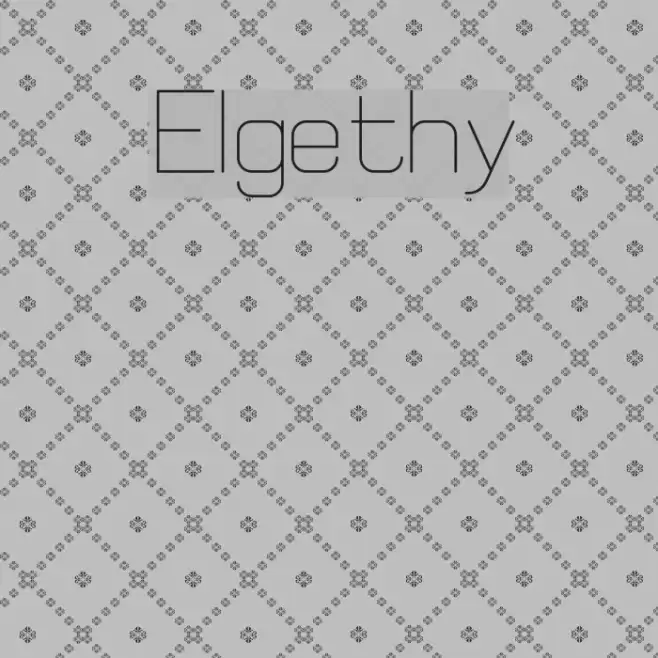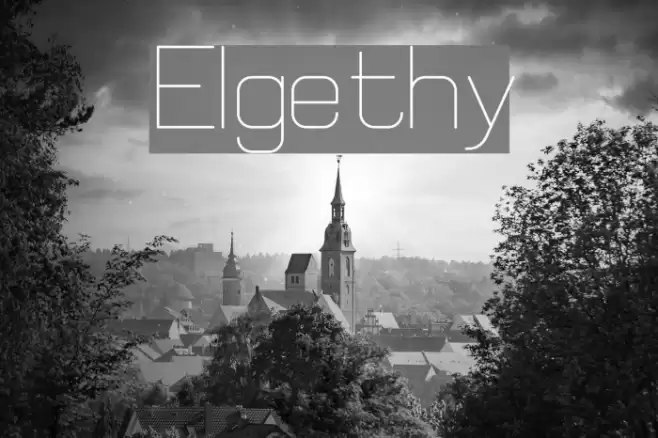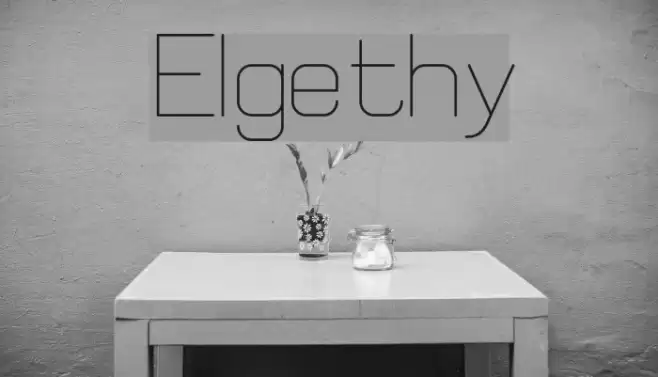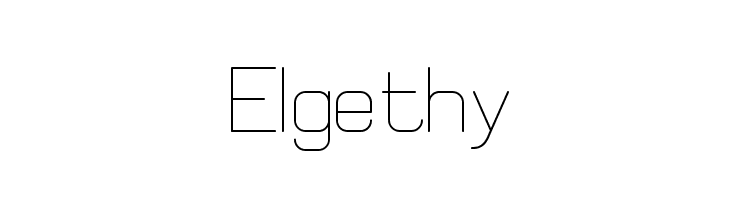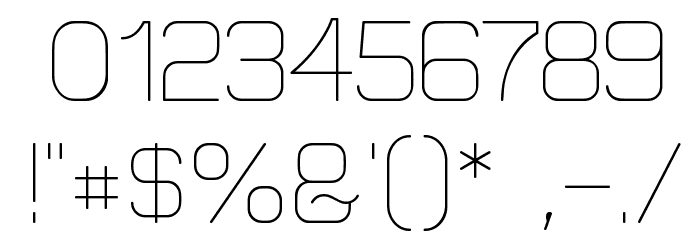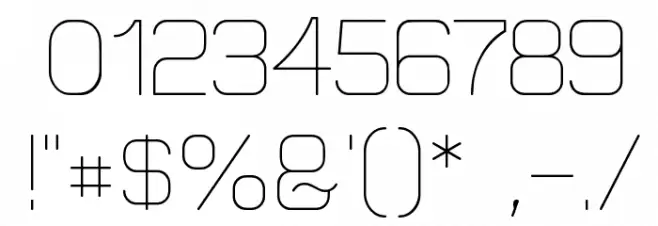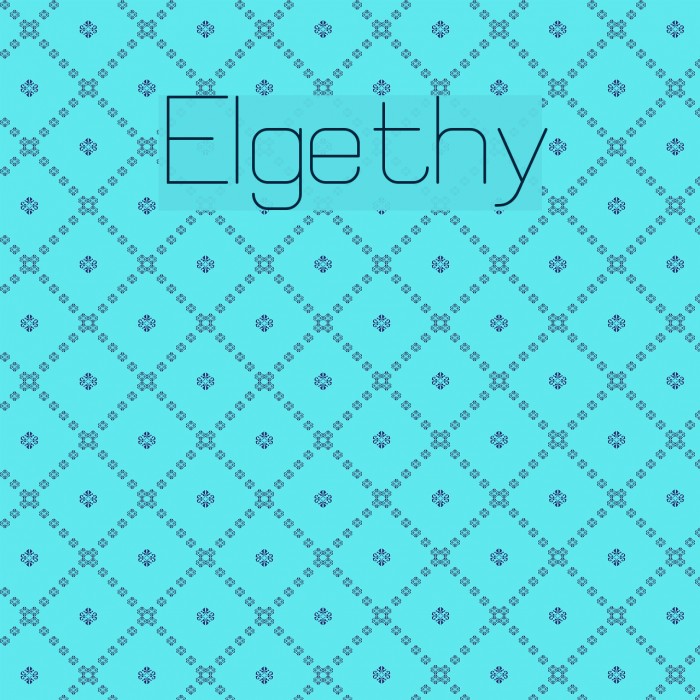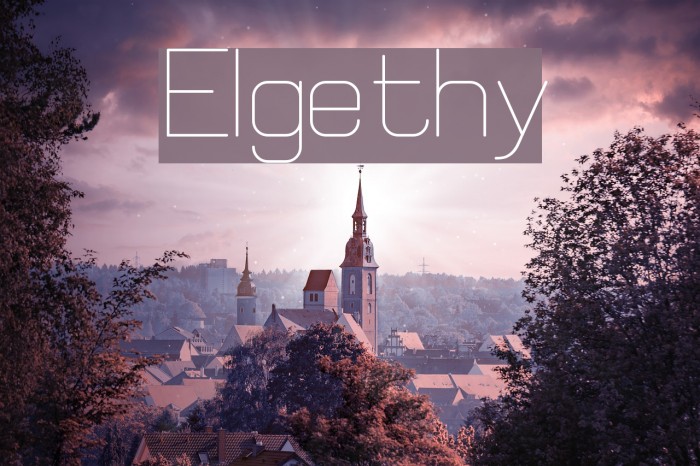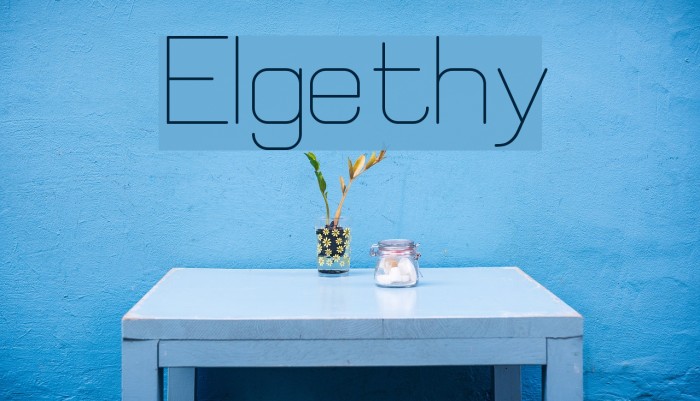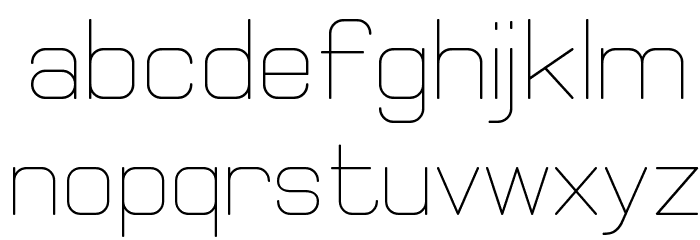
Elgethy Font
Elgethy Description
This font features a sleek, modern design with a geometric structure. The characters are composed of thin, uniform lines that give it a minimalist and contemporary appearance. The uppercase and lowercase letters maintain a consistent height, contributing to its clean and orderly look. The numerals and special characters are designed with the same thin lines, ensuring a cohesive style throughout. The font's simplicity and clarity make it suitable for various design applications where a modern and unobtrusive typeface is desired.
A sleek, modern font with thin, geometric lines and a minimalist style from Uncategorized fonts.
- Proposed Projects: Ideal for tech branding, minimalist posters, modern web design, and clean editorial layouts.
- Weight: Light
- Use Case: Headlines, Logos, Web design